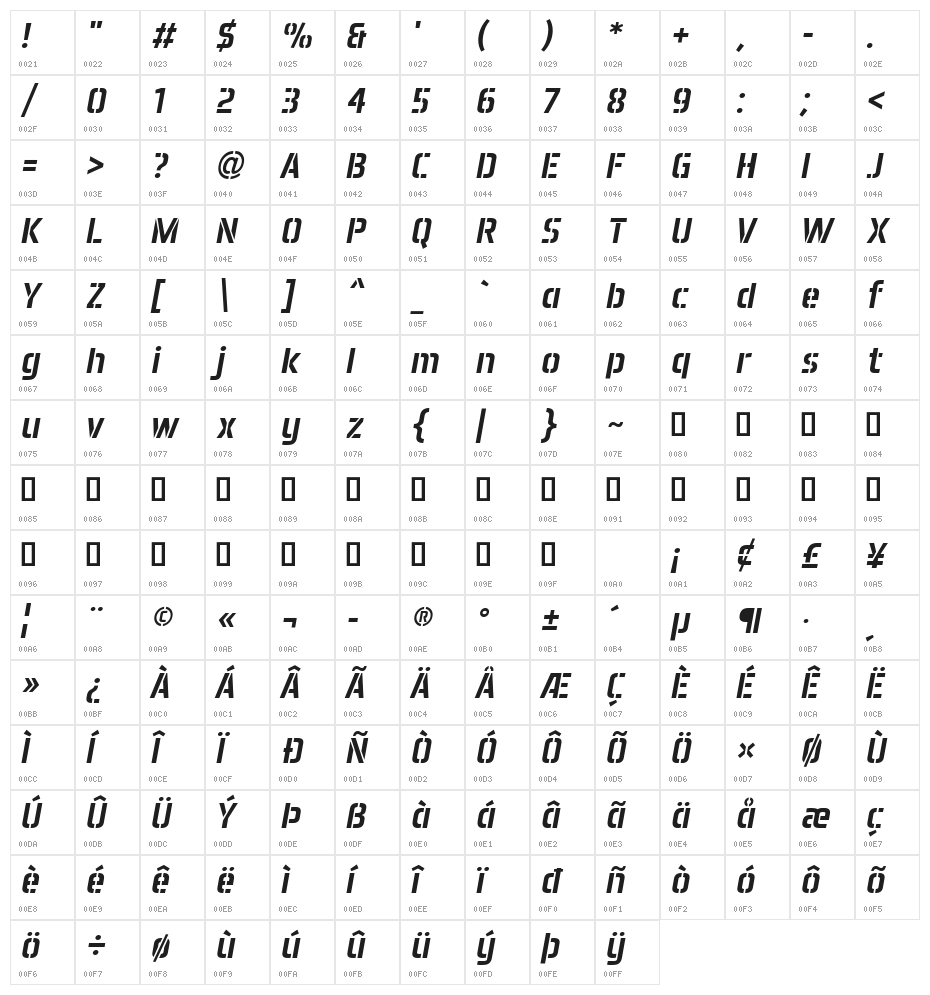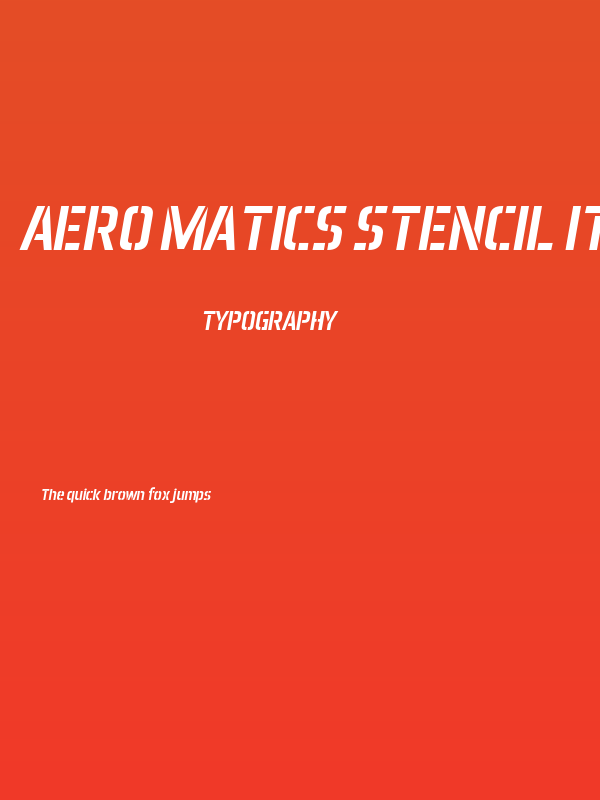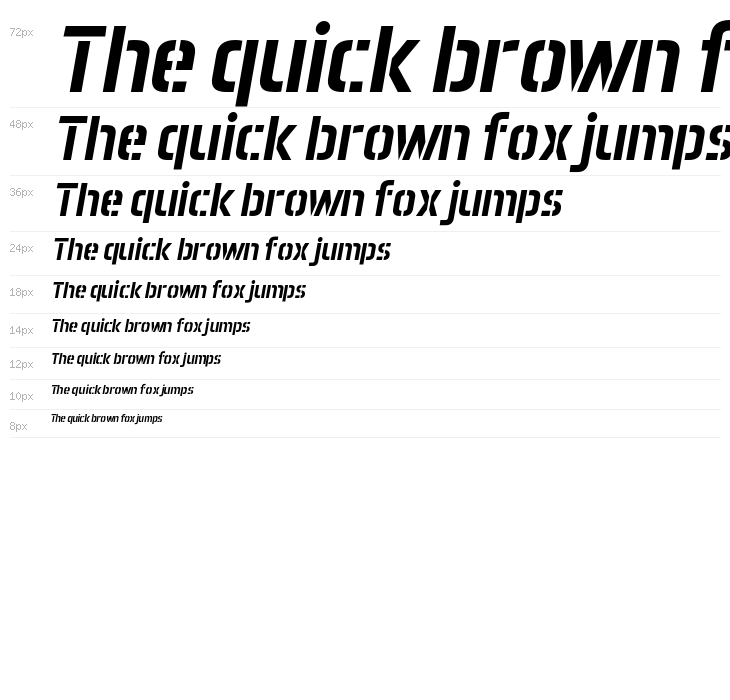
Aero Matics Stencil Italic Font
Aero Matics Stencil Italic Description
This font features a bold, italicized stencil design that combines modern aesthetics with a technical edge. The characters are sharply angled, giving a sense of motion and speed. The stencil gaps are strategically placed, enhancing readability while maintaining a distinct industrial feel. The uppercase and lowercase letters are consistent in style, with a slight slant that adds dynamism. Numbers and special characters follow the same design principles, ensuring uniformity across all glyphs. This font is ideal for projects that require a futuristic or mechanical theme, providing a strong visual impact.
| Proposed Projects | Ideal for branding, signage, posters, and any project needing a futuristic or technical aesthetic. |